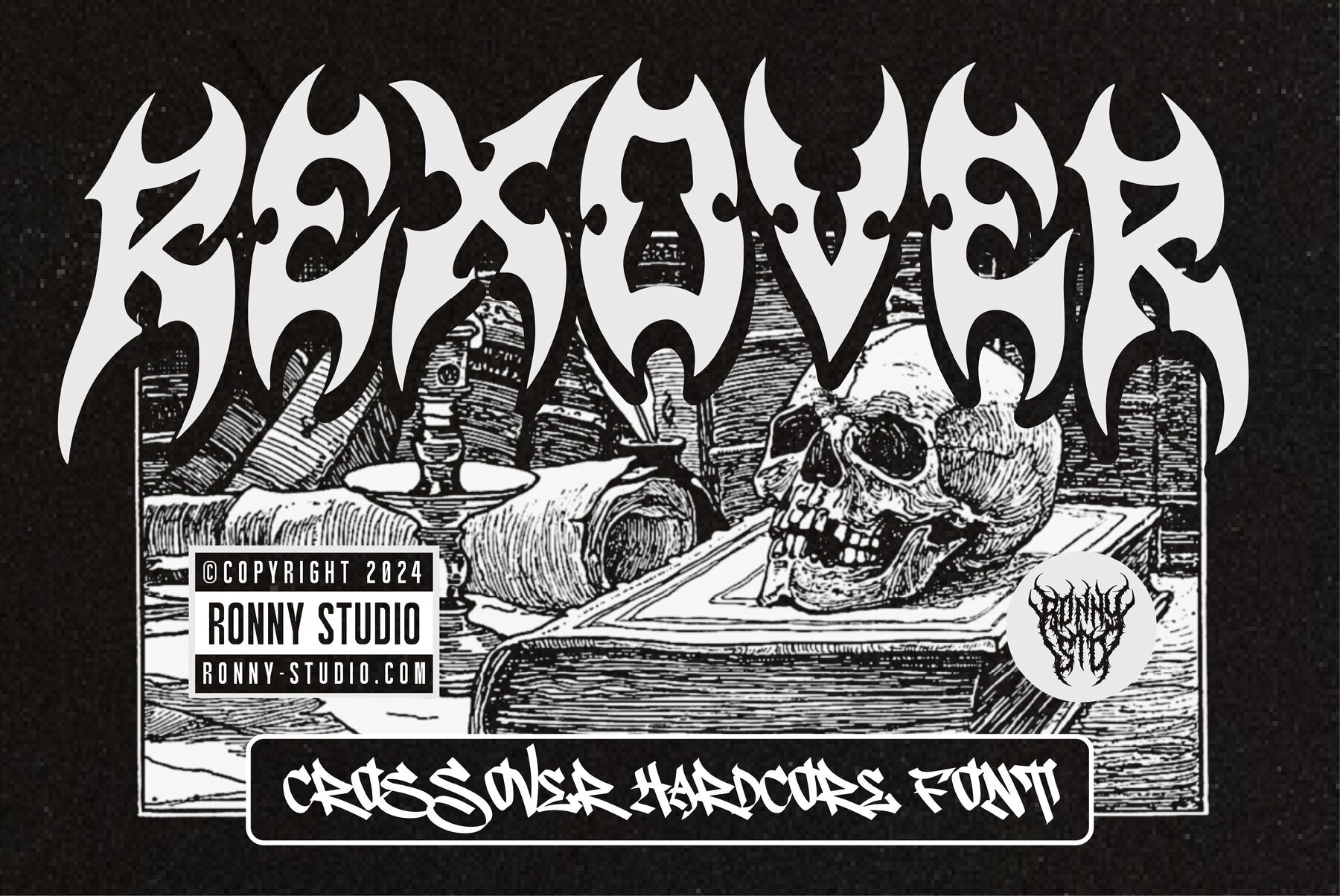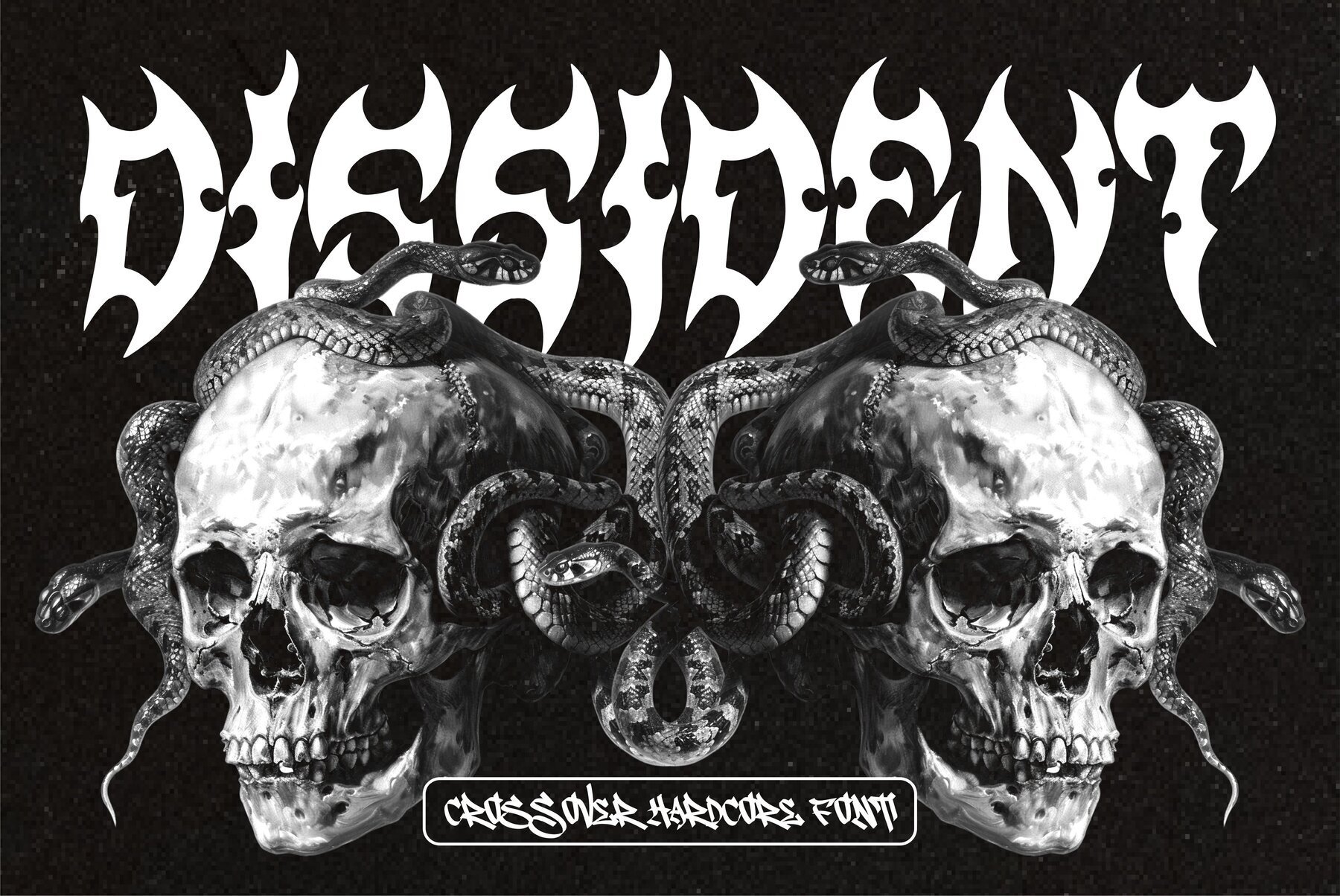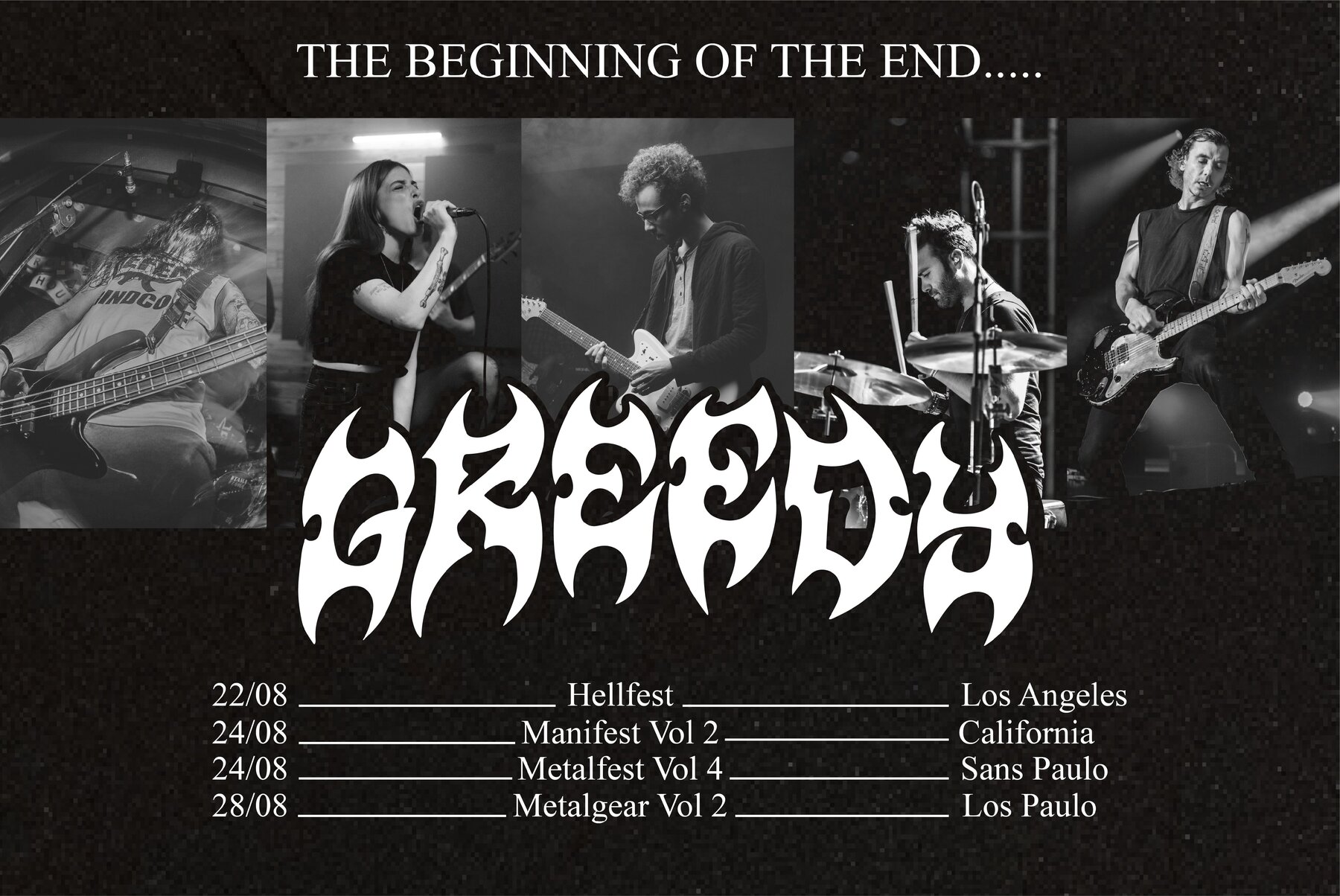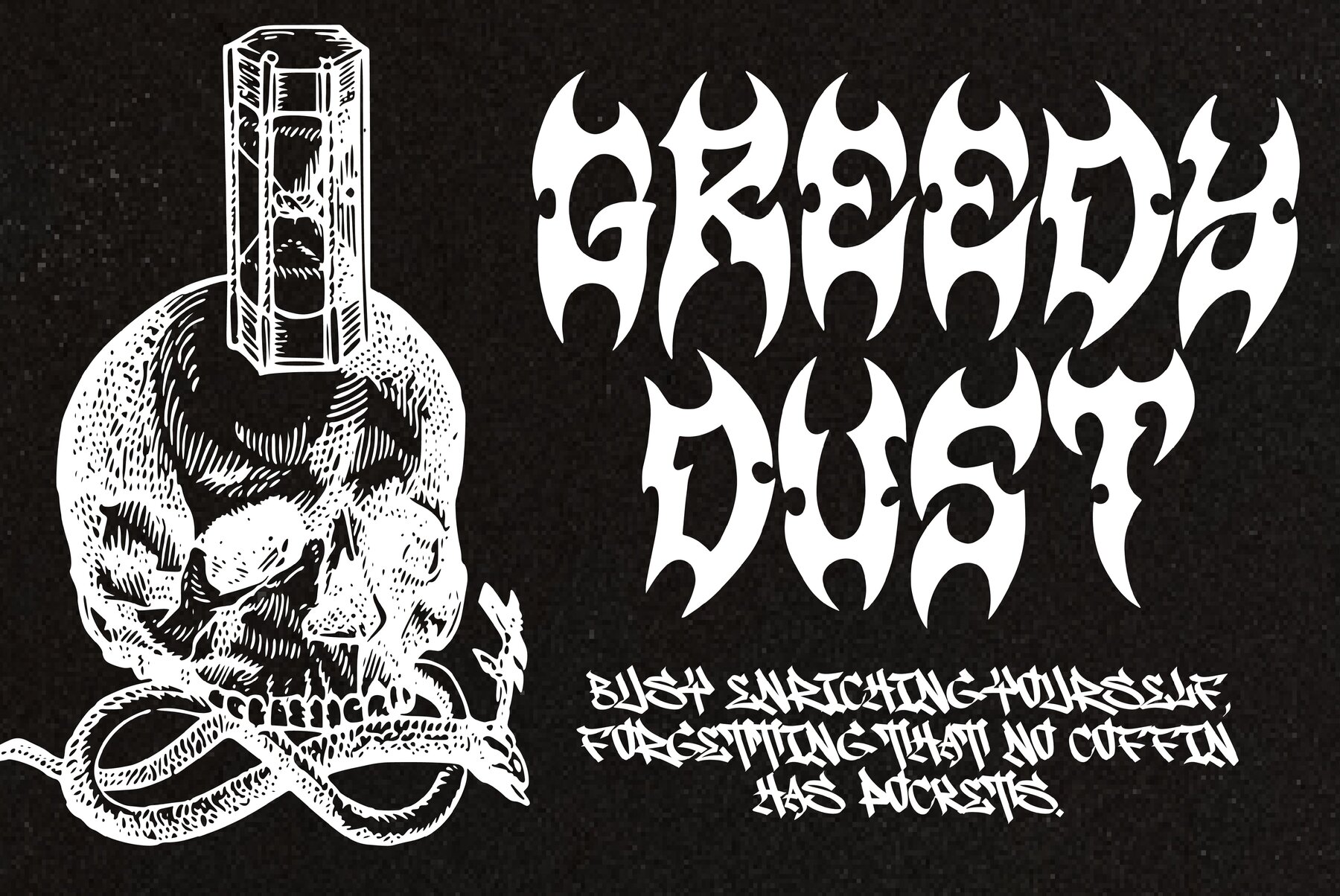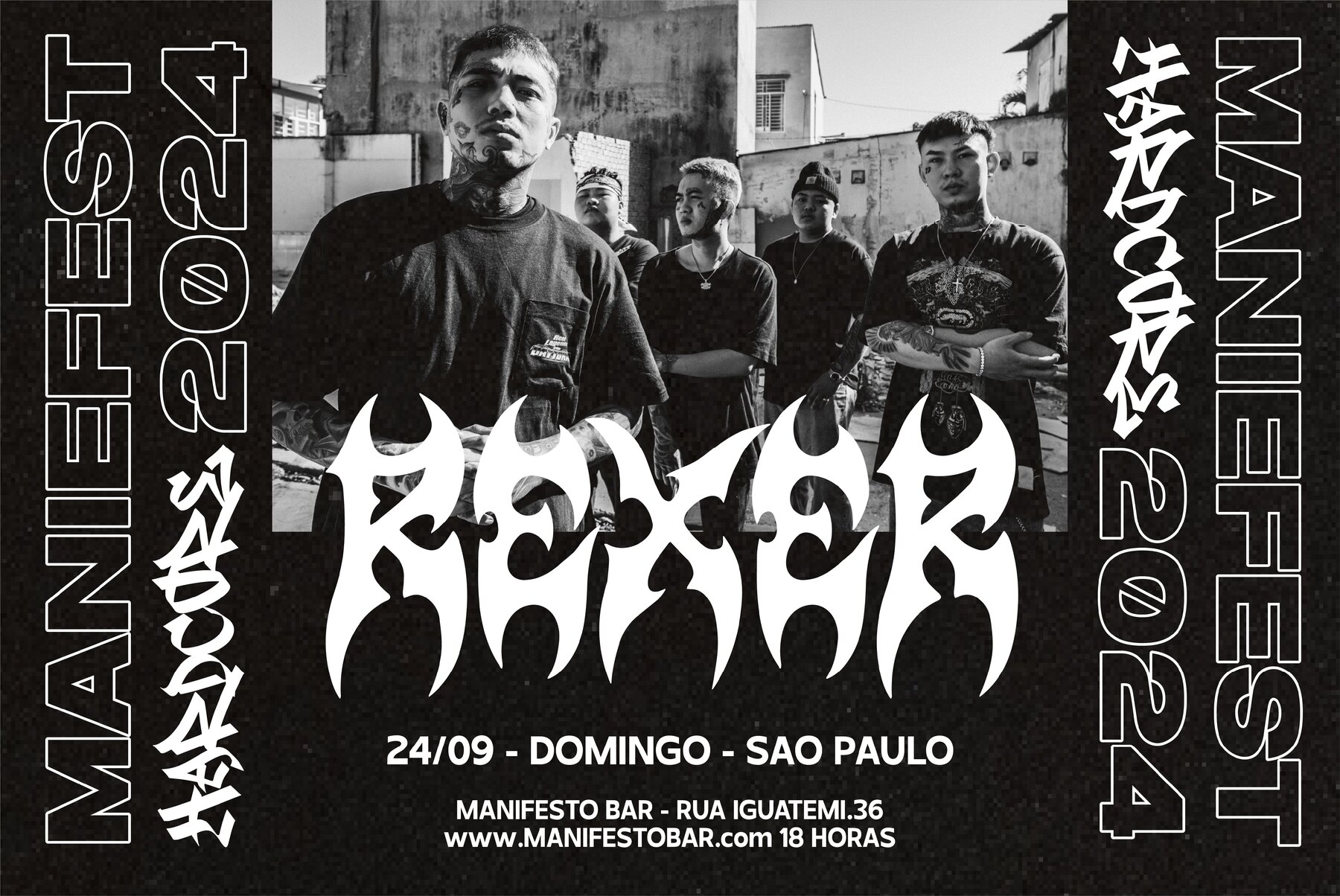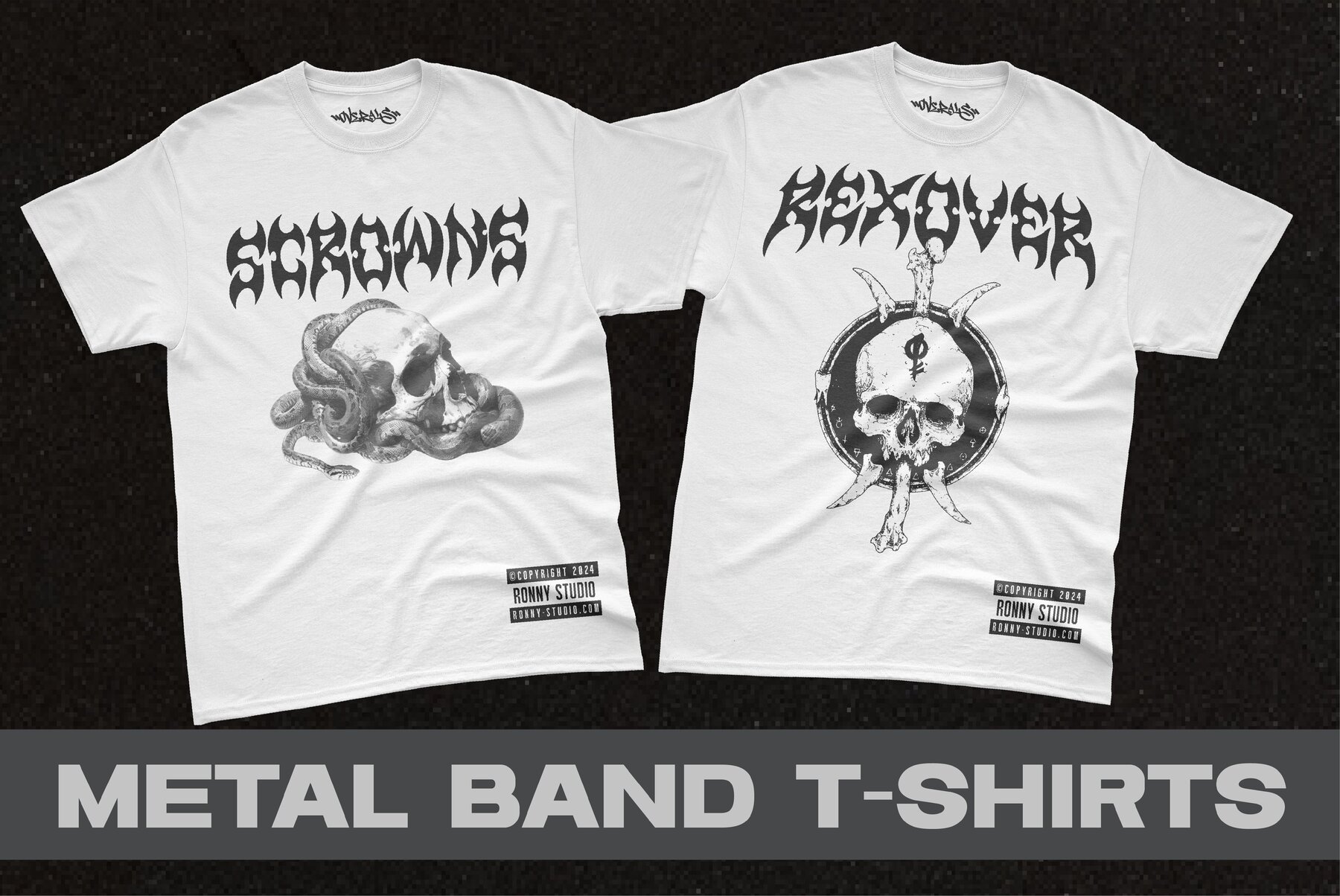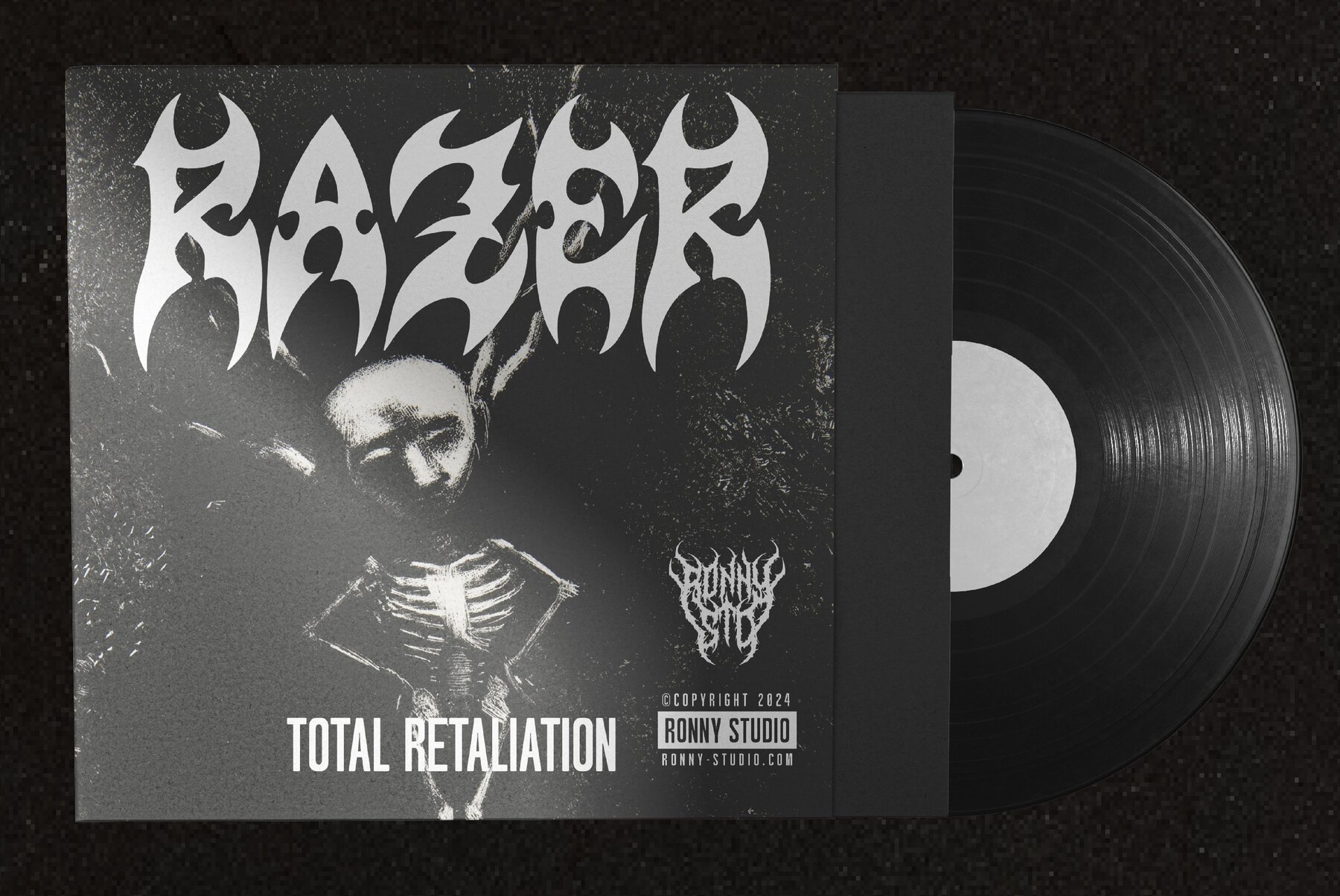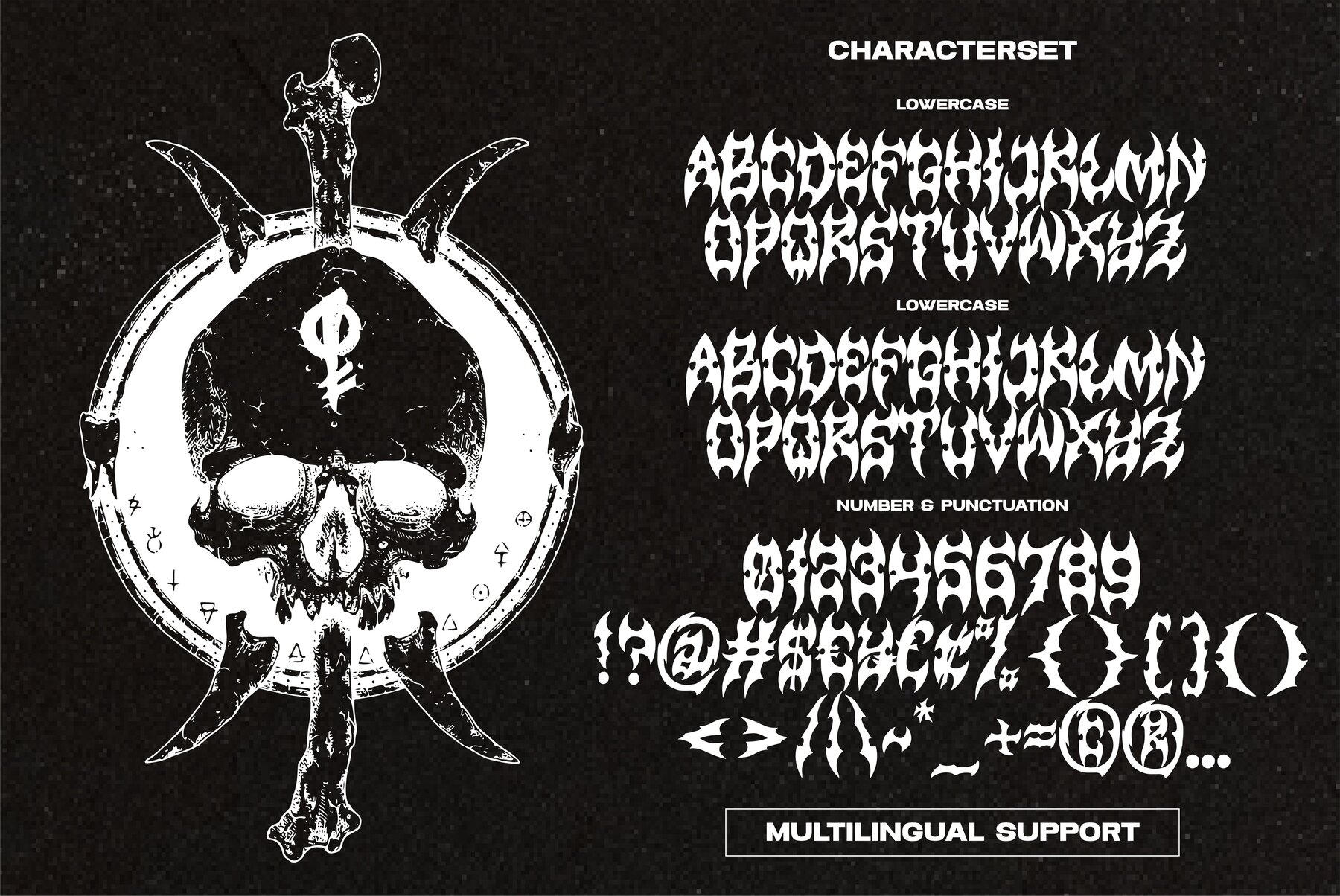
Rexover Font
Rexover
Rexover Font offers a dynamic way to craft standout underground band logos and other creative projects. Its aggressive, bold design is ideal for capturing the essence of the metal music genre. This font is perfect for use in a variety of applications, such as creating striking band logos, eye-catching poster designs, and unique graphics for t-shirts, jackets, hats, and beanies. With its unique aesthetic, Rexover sets your designs apart while maintaining a fierce and cool appearance.
The font is rich in features, including both uppercase and lowercase letters, numbers, and punctuation. It also includes alternate characters and ligatures for added versatility in your typography projects. Rexover supports multiple languages, ensuring accessibility for a global audience. Additionally, its PUA encoding allows easy access to all glyphs, enhancing the usability and creative potential of this font in diverse design environments.